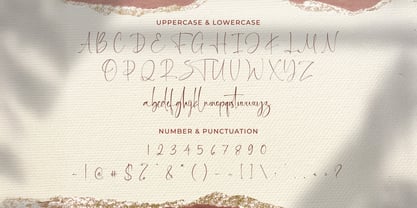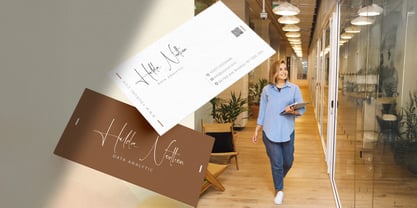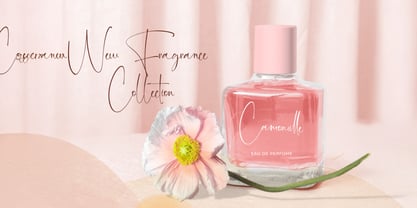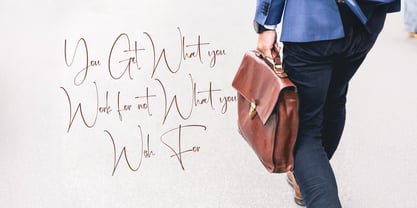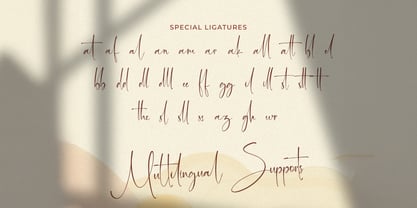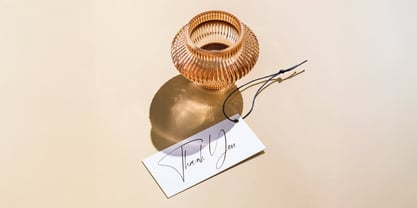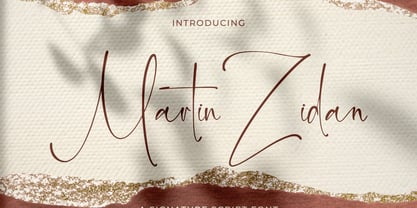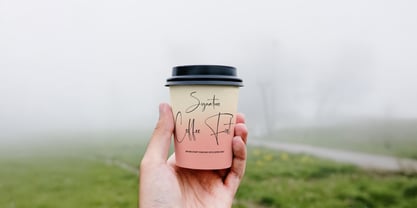
Martin Zidan
The Martin Zidan Font Family was designed by Virgiawan Listanto and published by Stringlabs Creative Studio. Martin Zidan contains 1 styles. More about this family
Introducing Martin Zidan, a classy signature script font designed to bring a refined and personal touch to your creative projects. With its smooth strokes and elegant curves, this font mimics a natural handwritten signature, making it perfect for premium branding and stylish design work.